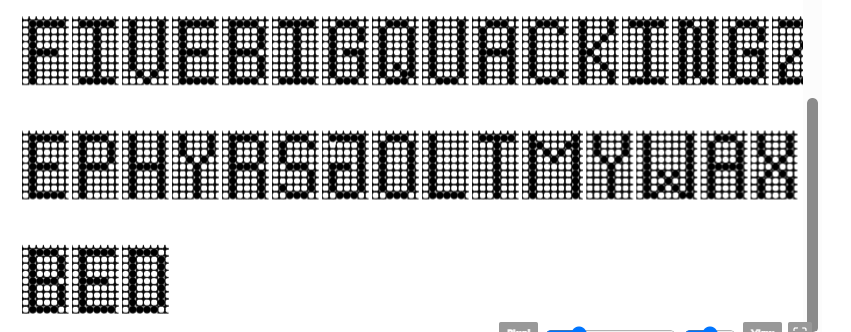
Why is the grid unfinished on the right side of letters?
Olá! é para que quando digitada várias letras sem espaços elas se alinham e se completam.
@lvqille backupukcab ellivql= Yes, the grid is unfinished